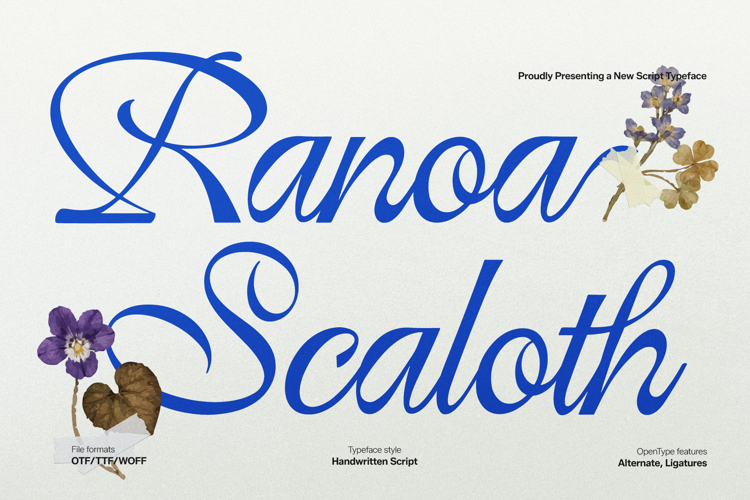
Ranoa Scaloth Font
Ranoa Scaloth | Handwritten Script, is suitable for any projects such as: logos, branding projects, homeware designs, product packaging, mugs, quotes, posters, shopping bags, t-shirts, book covers, name card, invitation cards, greeting cards, label, photography, watermark, special events, and all your other lovely projects that need a Script Font taste.